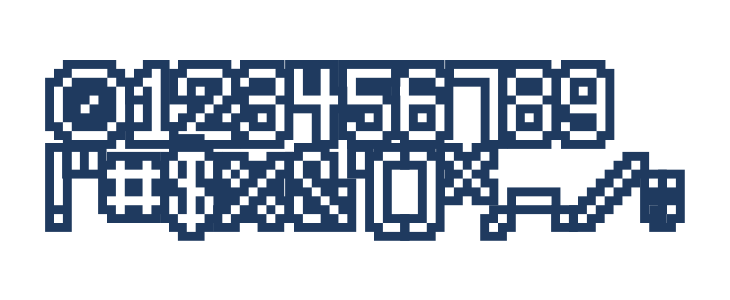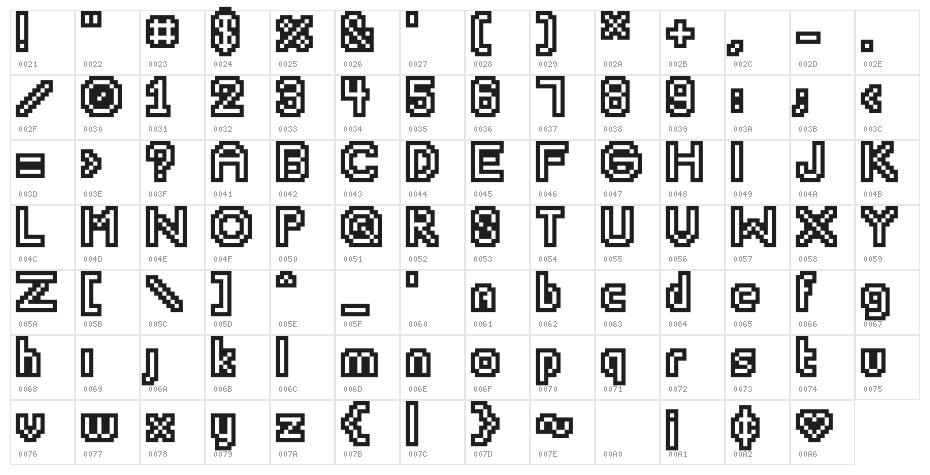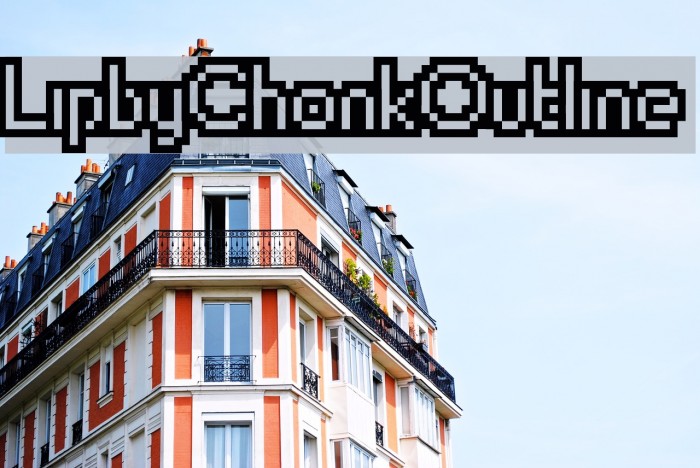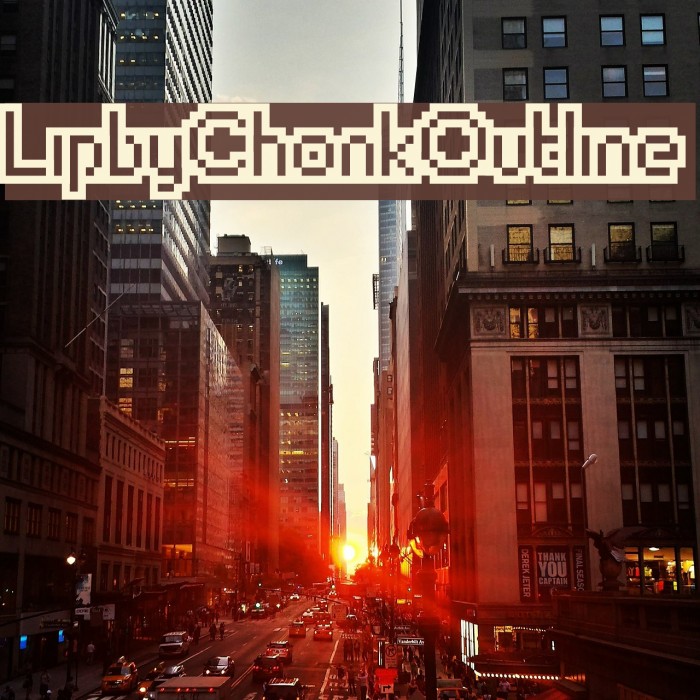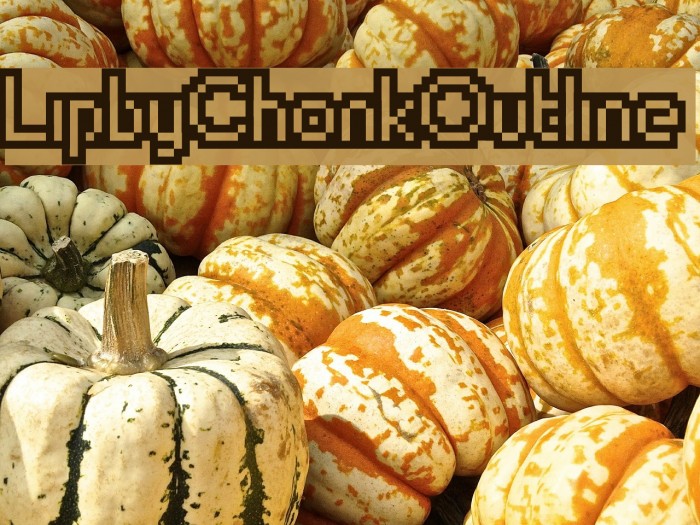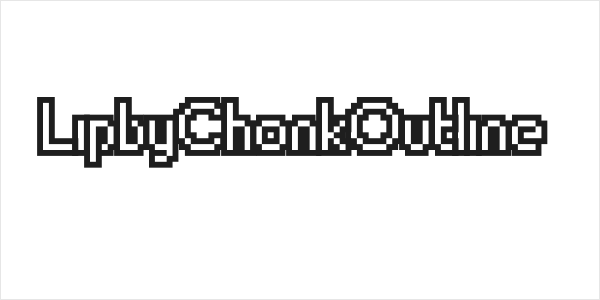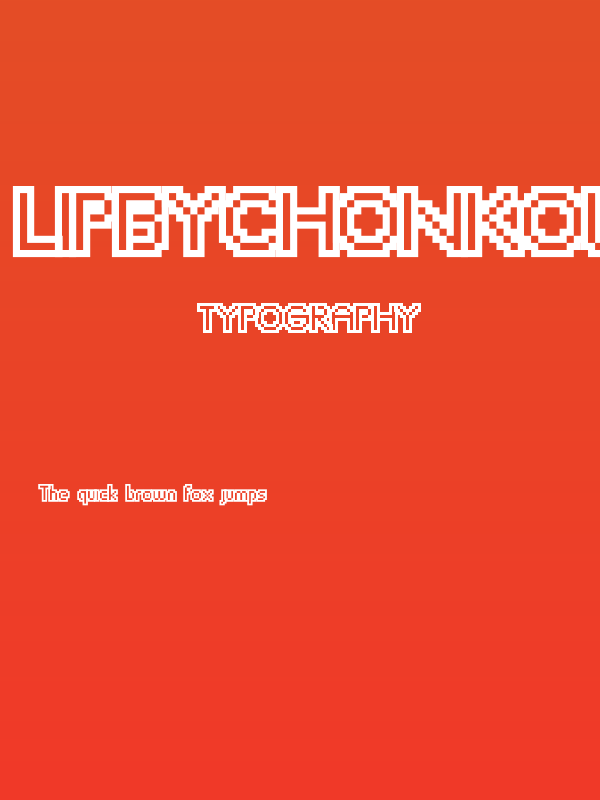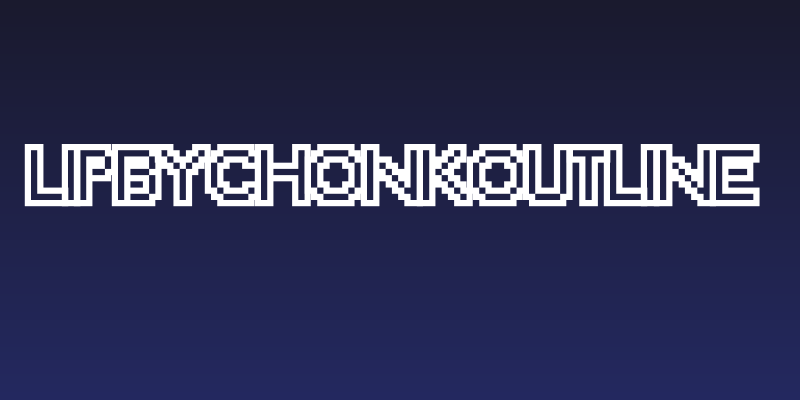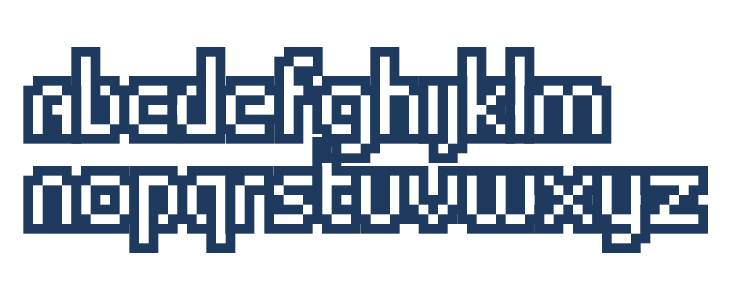
LipbyChonkOutline Font
LipbyChonkOutline Description
This font features a bold, blocky outline style with a pixelated, retro aesthetic. Each character is defined by thick, uniform strokes that create a distinct, outlined appearance. The uppercase and lowercase letters maintain a consistent height, contributing to a cohesive look. The numerals and special characters follow the same design principles, ensuring uniformity across all glyphs. This font's geometric and structured form makes it highly legible and visually striking, ideal for designs that aim to capture a vintage or digital feel.
| Proposed Projects | Perfect for video game graphics, retro-themed posters, digital art, and branding that requires a vintage or tech-inspired look. |